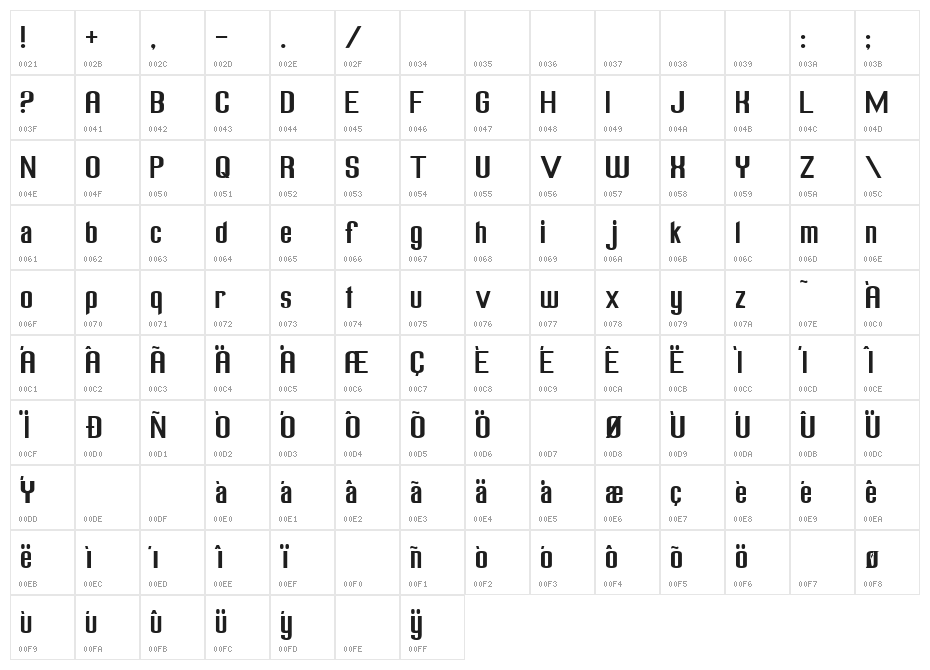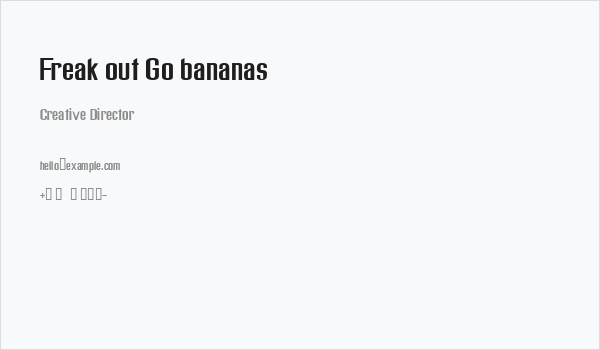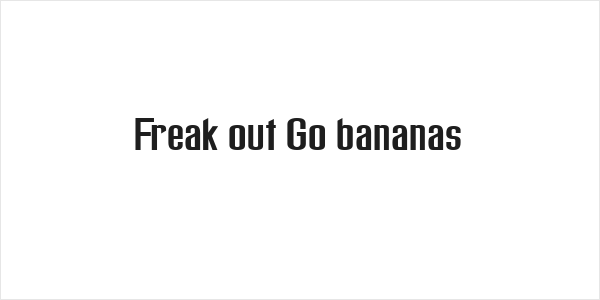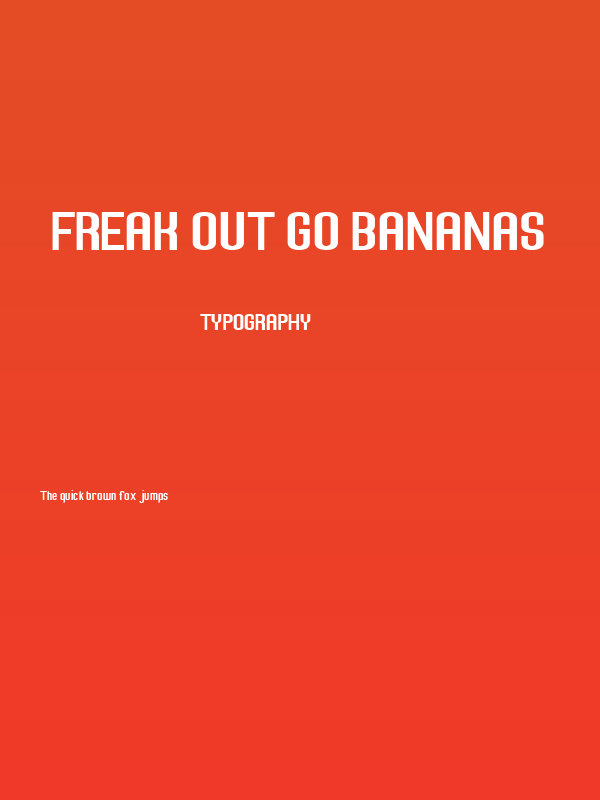
Freak out Go bananas Font
Freak out Go bananas Description
This font features a bold and modern design with a strong geometric influence. The uppercase letters are tall and narrow, giving a condensed appearance, while the lowercase letters maintain a consistent height that complements the uppercase. The strokes are uniform in thickness, contributing to a clean and structured look. The font includes a variety of special characters, each designed to match the overall aesthetic. The characters have a slight curve at the terminals, adding a touch of softness to the otherwise angular design. This font is versatile, suitable for both digital and print media, and can be used to create a striking visual impact.
| Proposed Projects | Ideal for branding, advertising, posters, and headlines where a strong visual impact is desired. |